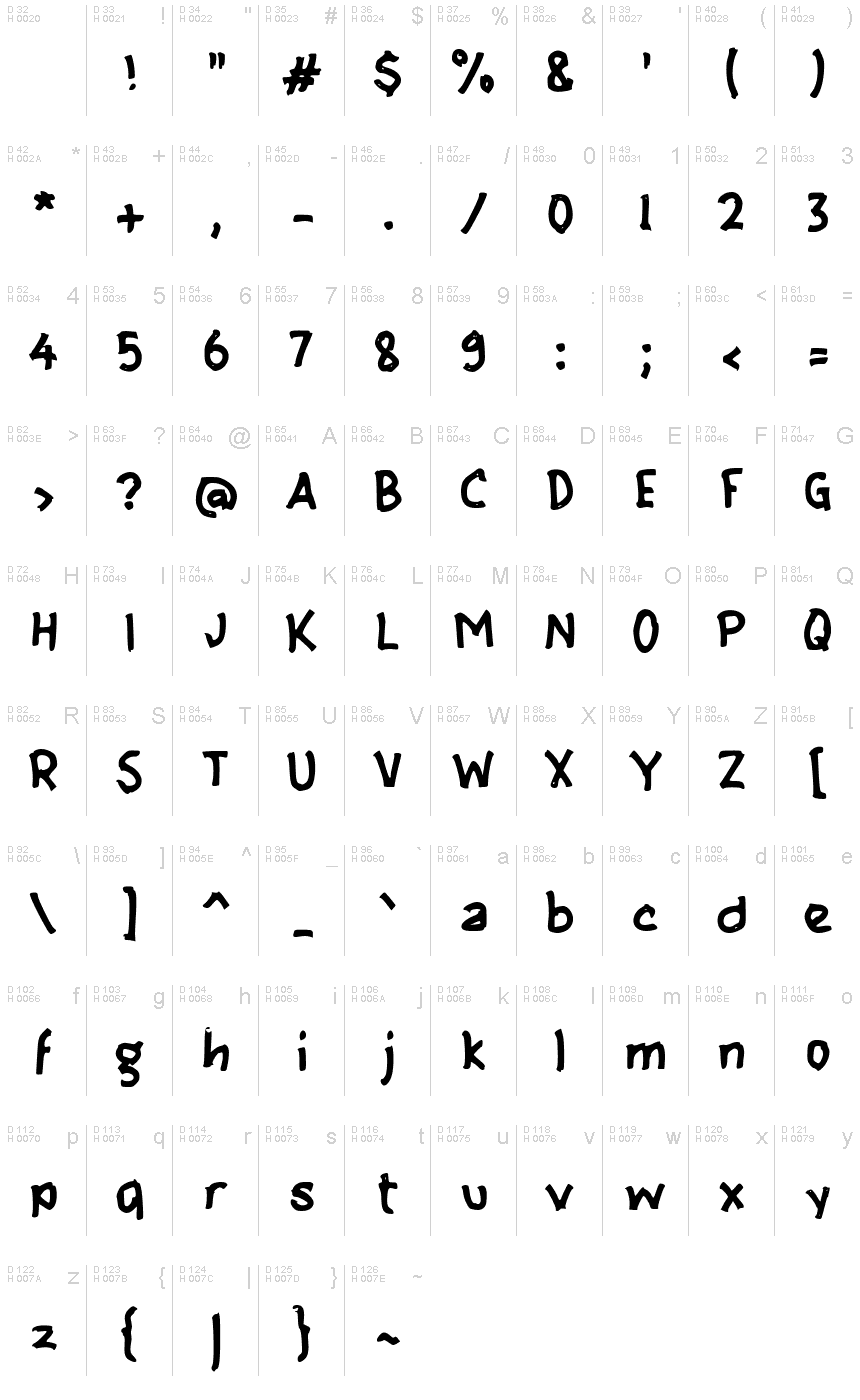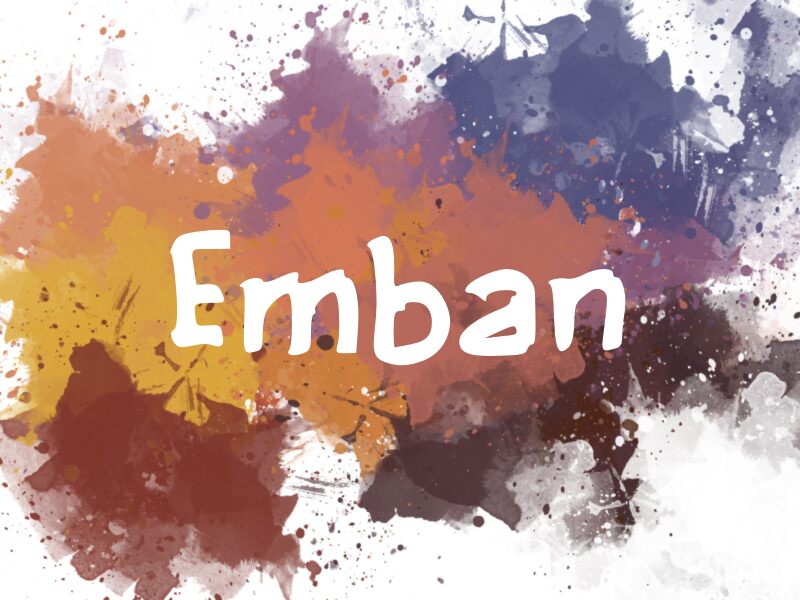
Emban
Emban is a captivating semi-bold brush font designed by wep that exudes creativity and energy. Its bold strokes and unique texture make it perfect for projects that require an artistic touch, such as branding, packaging, logo design, and social media graphics. Emban's versatility also makes it an ideal choice for wedding invitations, greeting cards, quotes, posters, and more. With its bold yet elegant appearance, Emban stands out in any medium or application. Whether you're working on a modern or traditional project, this font adds a touch of personality and charm that's sure to capture your audience's attention.